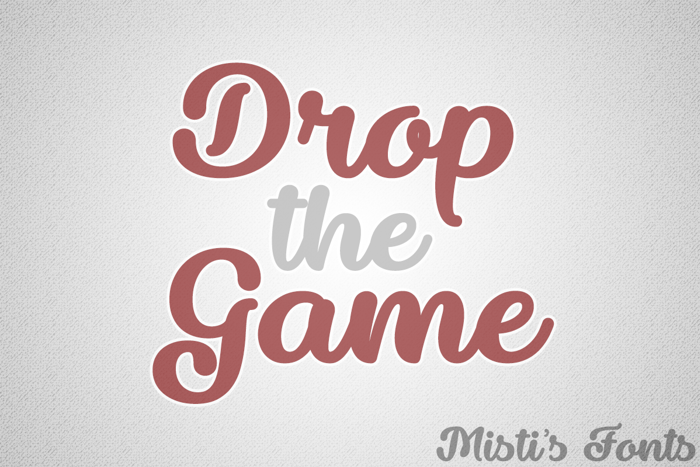
Drop the Game Font
Type {} (curly braces) for the bigger lowercase beginning and ending swashes
This font contains underline swashes in 15 different lengths to add additional flair and style to your projects!